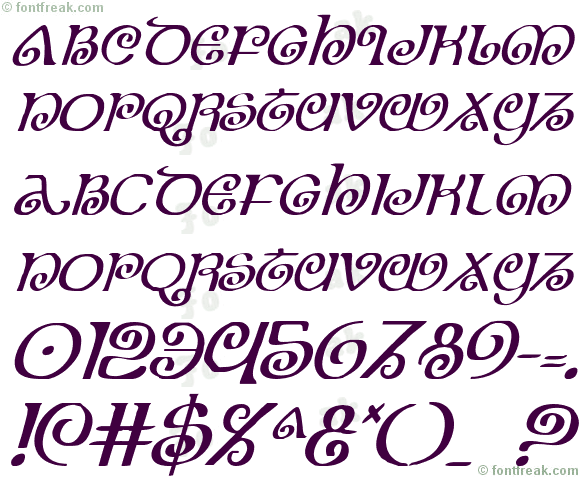
The Shire Leftalic
The Shire
The Shire Expanded
The Shire Bold Condensed
The Shire Condensed Italic
The Shire Italic
The Shire Condensed
The Shire Bold
The Shire Expanded Italic
The Shire Bold Italic
The Shire font by Iconian Fonts is a distinctive decorative typeface that combines whimsy with elegance, making it a standout choice for various design projects. This freeware font features a unique left-aligned italic style, characterized by its playful, swirling strokes and bold condensed appearance. The stroke weight is consistent, providing a sense of cohesion, while the decorative elements—such as the exaggerated curls and flourishes—add a charming flair that draws the eye. The spacing is well-balanced, ensuring legibility even in longer texts.
The Shire font is particularly well-suited for creative applications such as wedding invitations, where its romantic curves can enhance the overall aesthetic. It is also an excellent choice for movie posters, especially those in fantasy or whimsical genres, as its playful nature can help convey a sense of adventure. Additionally, restaurant menus can benefit from this font, as it adds a touch of personality that invites diners to explore the offerings. Graphic designers looking for a unique typeface to make their projects stand out will find The Shire font a valuable addition to their toolkit.
Targeted toward graphic designers, small business owners, and content creators, The Shire offers a versatile solution for those seeking to express creativity through typography. Its distinctive style makes it easy to create eye-catching designs that resonate with audiences.
What sets The Shire font apart is its ability to blend artistry with functionality. The playful, decorative elements lend a unique character, while its legibility ensures it can be used effectively across various mediums. With The Shire font free download available, incorporating this enchanting typeface into your next project is both accessible and easy.